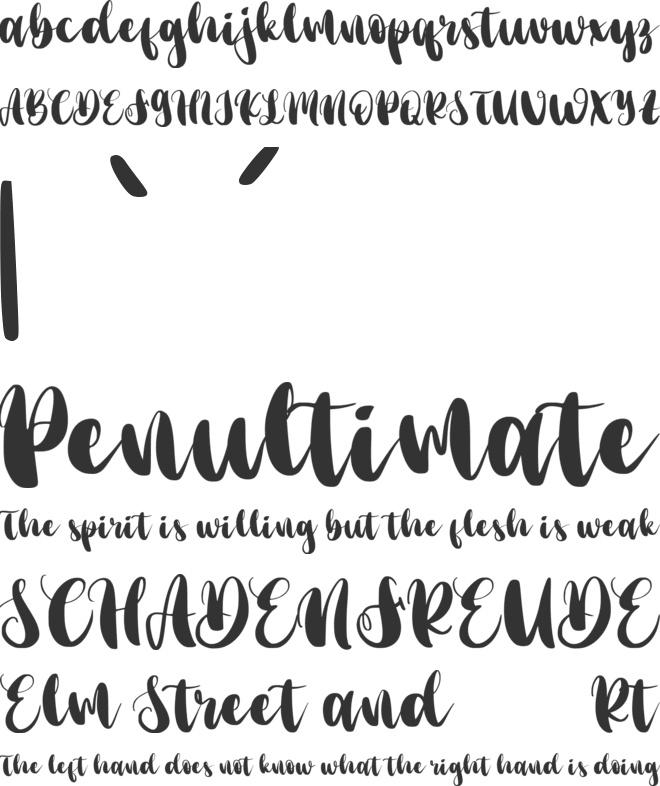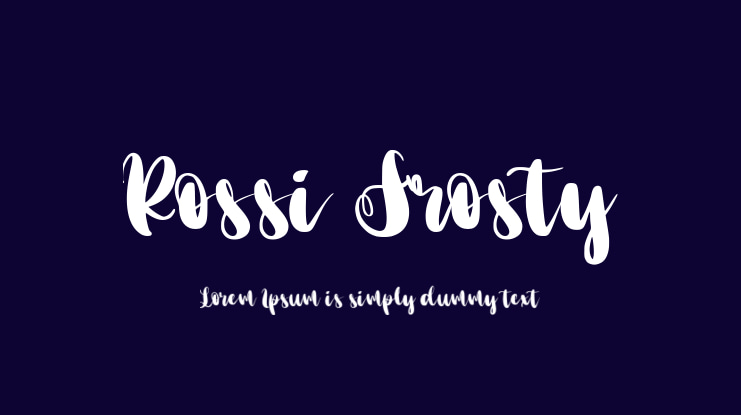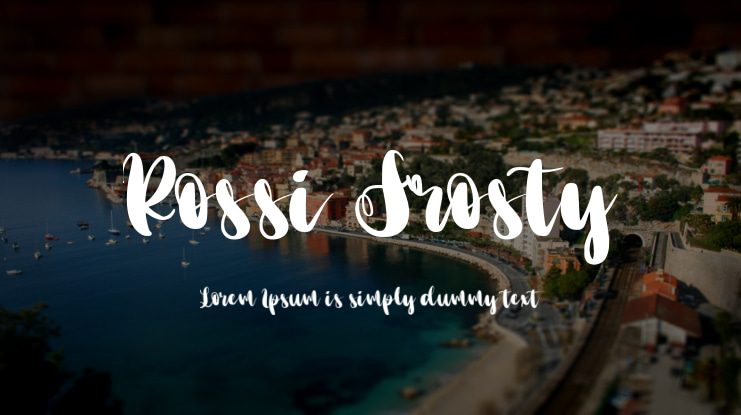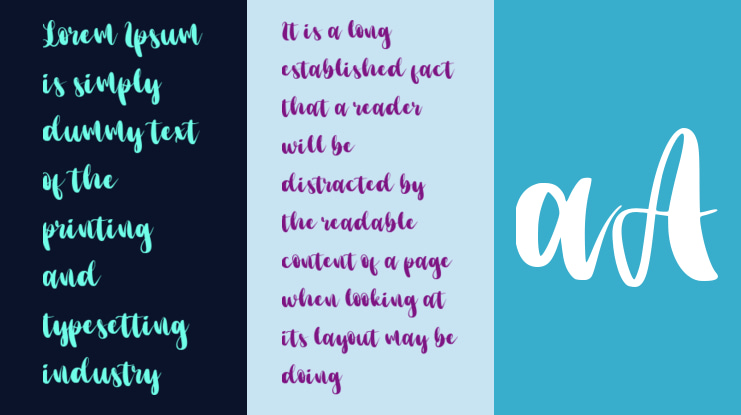
Rossi Frosty Font
Introducing Rossi Frosty, a hand-drawn font that effortlessly captures the essence of whimsical charm. Crafted with precise detailing, it embraces distinctive ligatures and ingenious swashes on the lowercase letters. Its relaxed and delightful design makes it an ideal choice for an array of artistic needs.
Moreover, Rossi Frosty proves versatile across different digital platforms, seamlessly integrating into any tool you prefer. Experience the adorable simplicity of this naturally inspired font and watch your designs come alive.